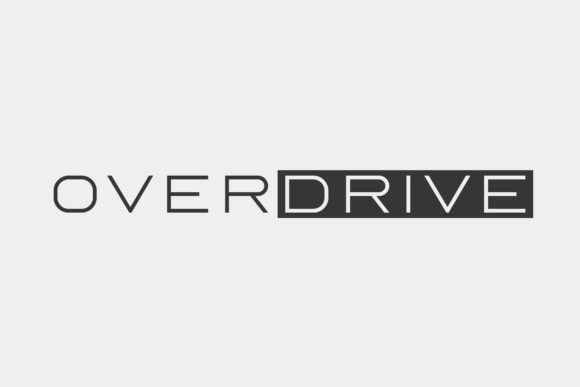
Looking to make a lasting impression with your resume? Look no further than Overdrive Font, the best font for a resume in 2013. Created by HipFonts, this incredibly simple and minimal sans serif font is just what you need to stand out from the crowd.
With its futuristic style, Overdrive Font adds a touch of modernity and sophistication to your design ideas. Its clean lines and sleek appearance make it the perfect choice for any professional looking to make a bold statement.
But why should you choose Overdrive Font for your resume? Let us tell you why:
1. Eye-catching Appeal: Overdrive Font captures attention with its unique and captivating design. Its sleek and modern look instantly grabs the viewer's eye, making your resume memorable and visually appealing.
2. Professional Elegance: This font exudes professionalism and elegance. Its clean and minimalistic style gives off a sophisticated vibe, showcasing your attention to detail and professionalism.
3. Versatile Usage: While Overdrive Font is perfect for resumes, its versatility extends far beyond. Whether you're designing a website, creating a logo, or crafting a presentation, this font will seamlessly integrate into any project, giving it a polished and contemporary feel.
4. Enhanced Readability: Overdrive Font is designed with legibility in mind. Its simple yet striking letterforms ensure that your resume is easy to read, allowing employers to quickly scan your qualifications and achievements.
5. Unleash Creativity: With Overdrive Font, you're not limited to traditional resume designs. Its futuristic style opens up a world of creative possibilities, allowing you to showcase your personality while maintaining a professional appearance.